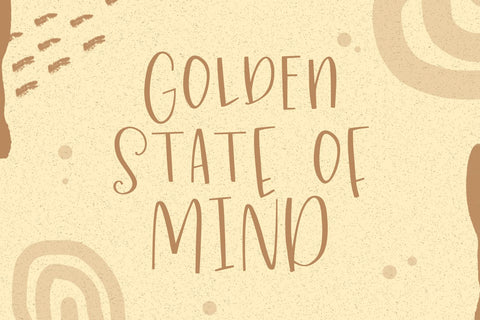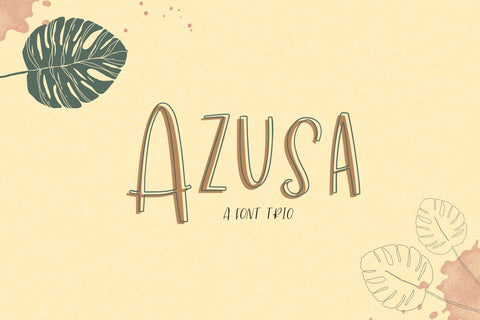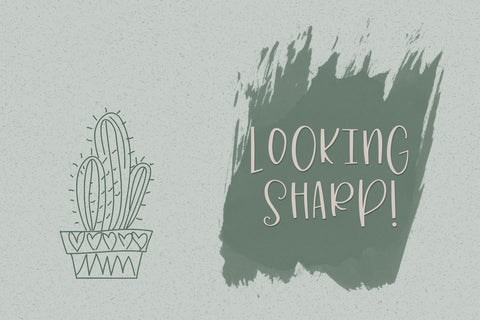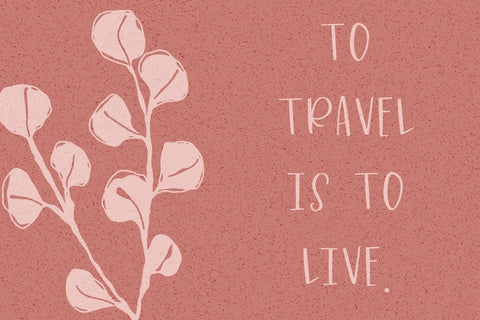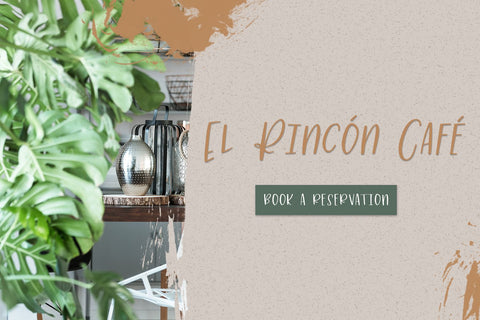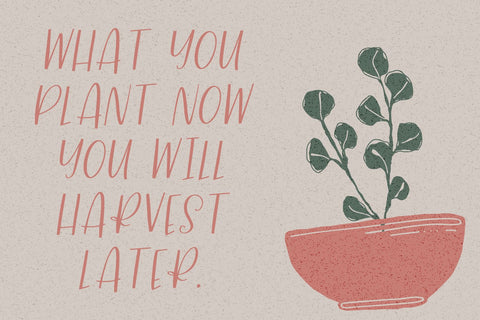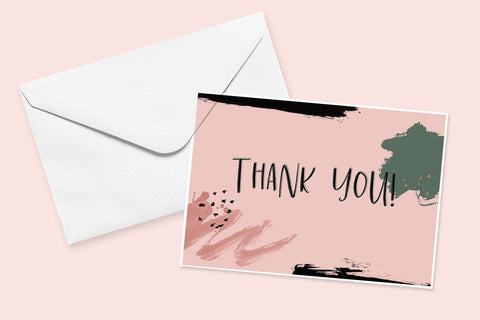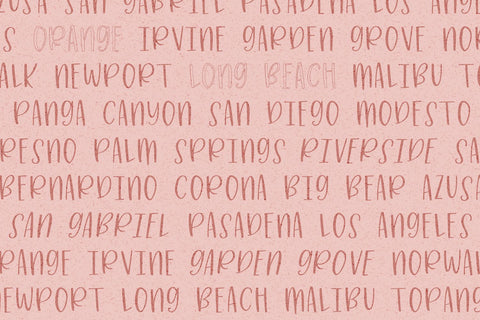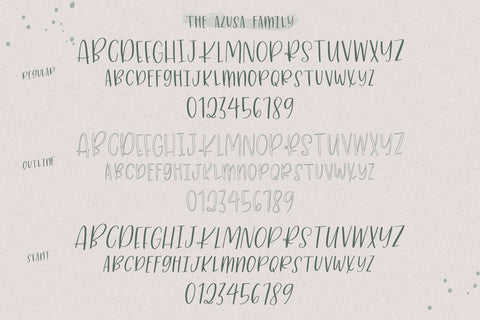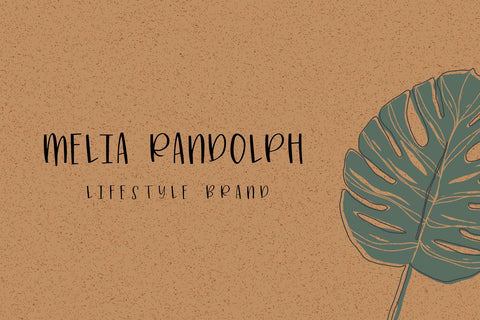
Azusa Sans Font Trio
Meet the Azusa Sans Font Trio, a super fun sans in three styles. Azusa Sans includes regular, outline, and italic versions! Azusa includes bigger uppercase characters, and small caps in place of lowercase letters, offering variation and options. It’s legible, easy to read, and excellent to mix & match with guaranteed cohesion for any project!
The Azusa Trio is best for:
- website header elements needing a slightly feminine, funky touch
- clean print design, like magazines + flyers
- logos + branding
- quote graphics for social media
The Azusa Trio includes:
- uppercase characters + small caps for lowercase to add just a bit of variety
- numbers + punctuation
- Western European Language Support